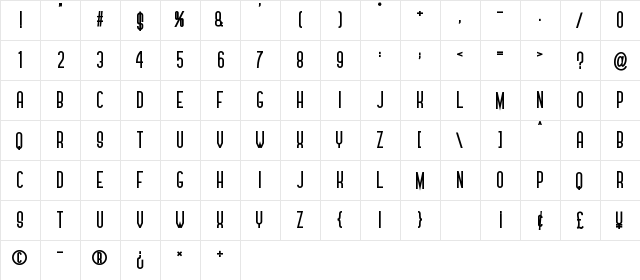
Forever Together Sans Bold
| Designer | Lettersiro 2018 |
Design Context for Forever Together Sans Typeface
Forever Together Sans is a composed and adaptable typeface that performs quietly and consistently across a wide range of design contexts. Its bold stroke weight gives it real presence on the page.